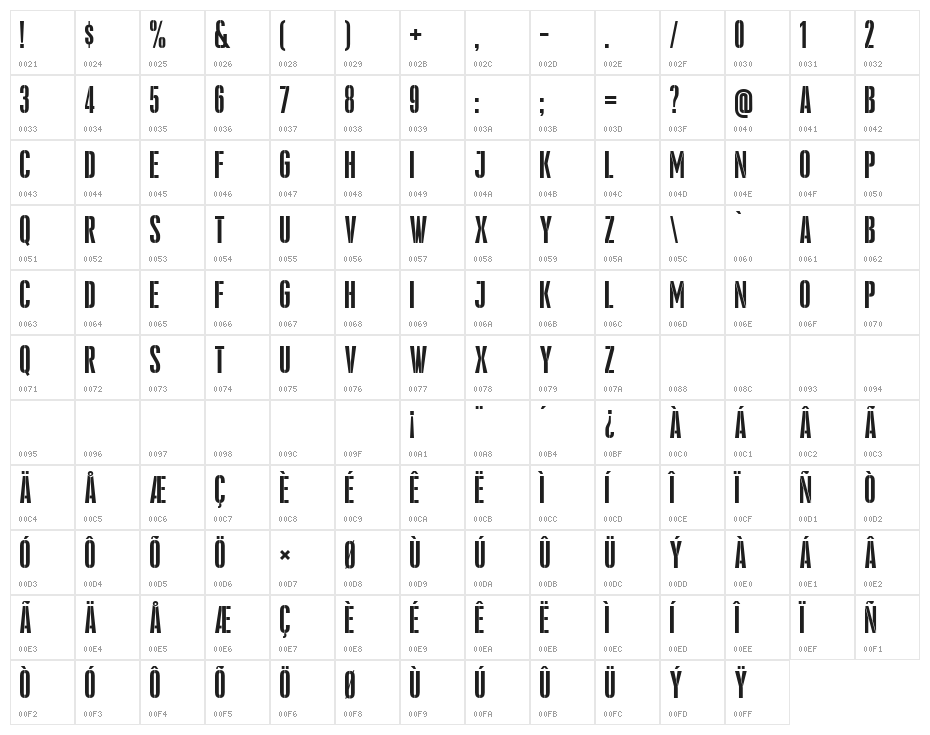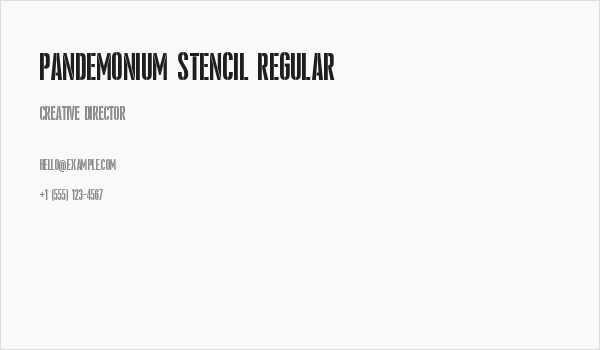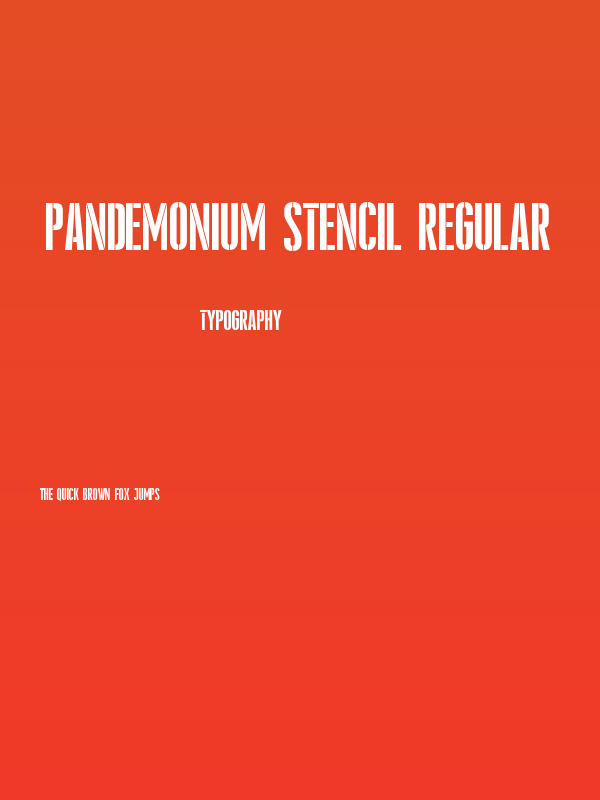
Pandemonium Stencil Regular Font
Pandemonium Stencil Regular Description
This font features a bold, stencil-like design with distinct cutouts that give it a rugged, industrial feel. The uppercase letters are tall and narrow, creating a strong vertical emphasis. The characters are evenly spaced, maintaining a clean and organized appearance. The numbers and special characters follow the same stencil style, ensuring consistency across all elements. This font is ideal for projects that require a bold and impactful statement, such as posters, signage, or branding materials.
HENRIavecunK
| Overall Style | Industrial, Bold, Stencil |
| Proposed Projects | Ideal for posters, signage, branding materials, and any project needing a bold, impactful statement. |
| Author | HENRIavecunK |